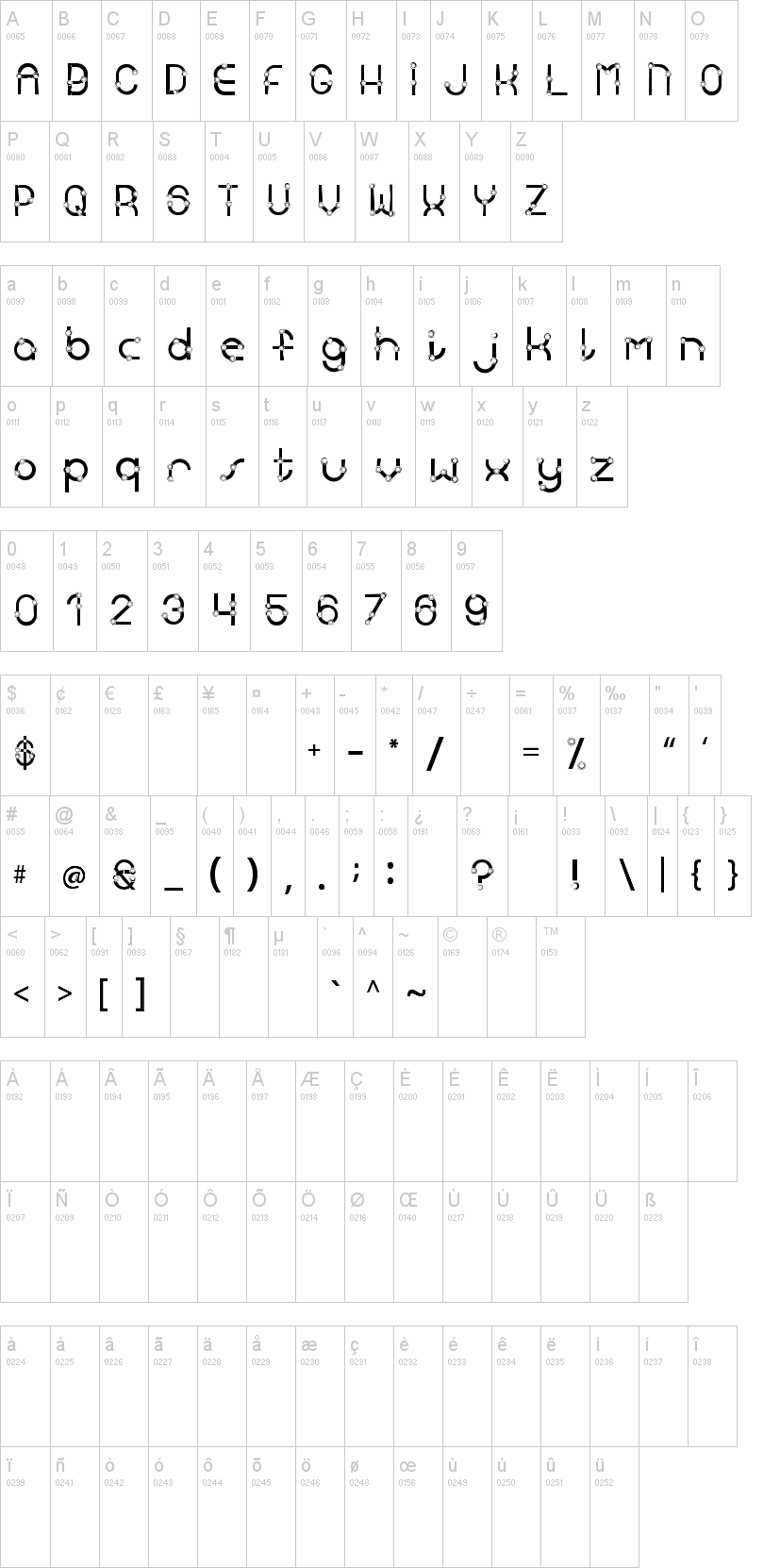
Шрифт Kings Cross
This font was based on the King's Cross neighborhood on Sydney, Australia. It reflects the train line, the odd shape of the streets, and the destinations of the area.